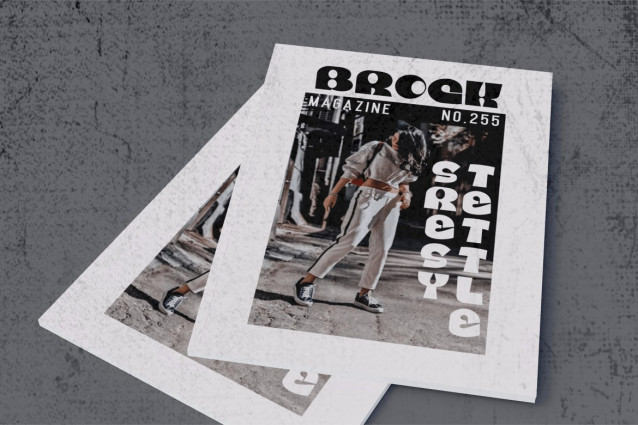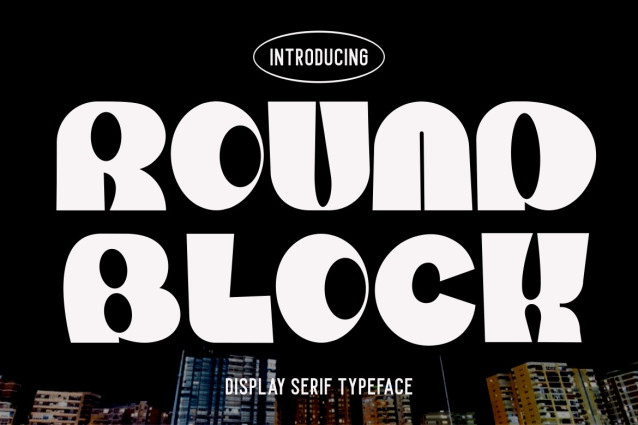
Round Block Font
Round Block Font – Display Serif Typeface, a captivating font that effortlessly blends boldness and unique shapes with a subtle touch of retro flair. With its distinctive design, this typeface is a perfect choice for making your creations stand out. The bold and eye-catching letters lend themselves well to various applications, from logos and branding to titles, headlines, invitations, posters, stickers, and more.
Let Round Block’s distinct style add a touch of personality and character to your projects. Whether you’re aiming for a nostalgic vibe or simply want to make a bold statement, this font is versatile enough to fit a wide range of design needs. Elevate your designs with Round Block – Display Serif Typeface and infuse them with a captivating blend of strength, uniqueness, and a hint of retro charm.